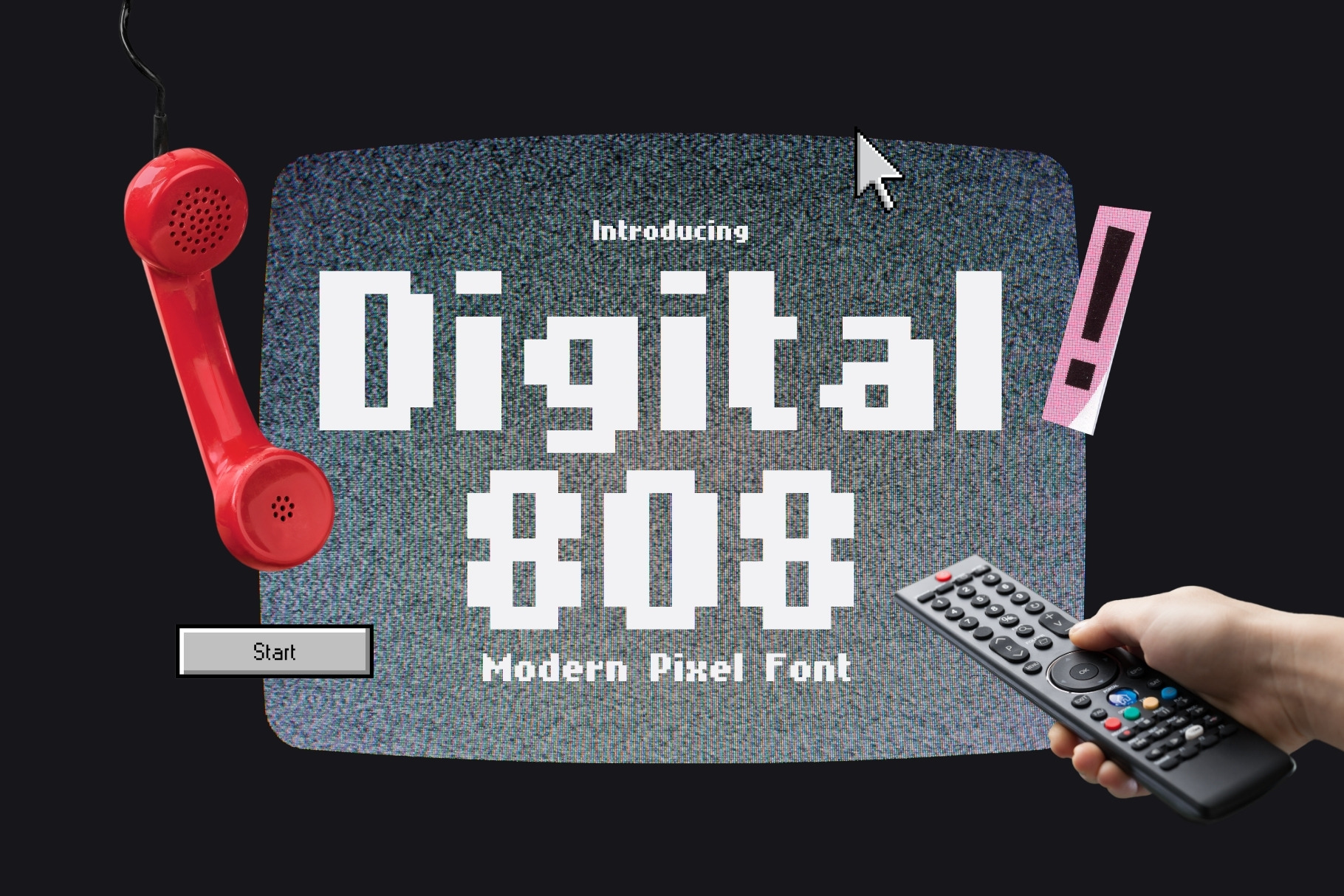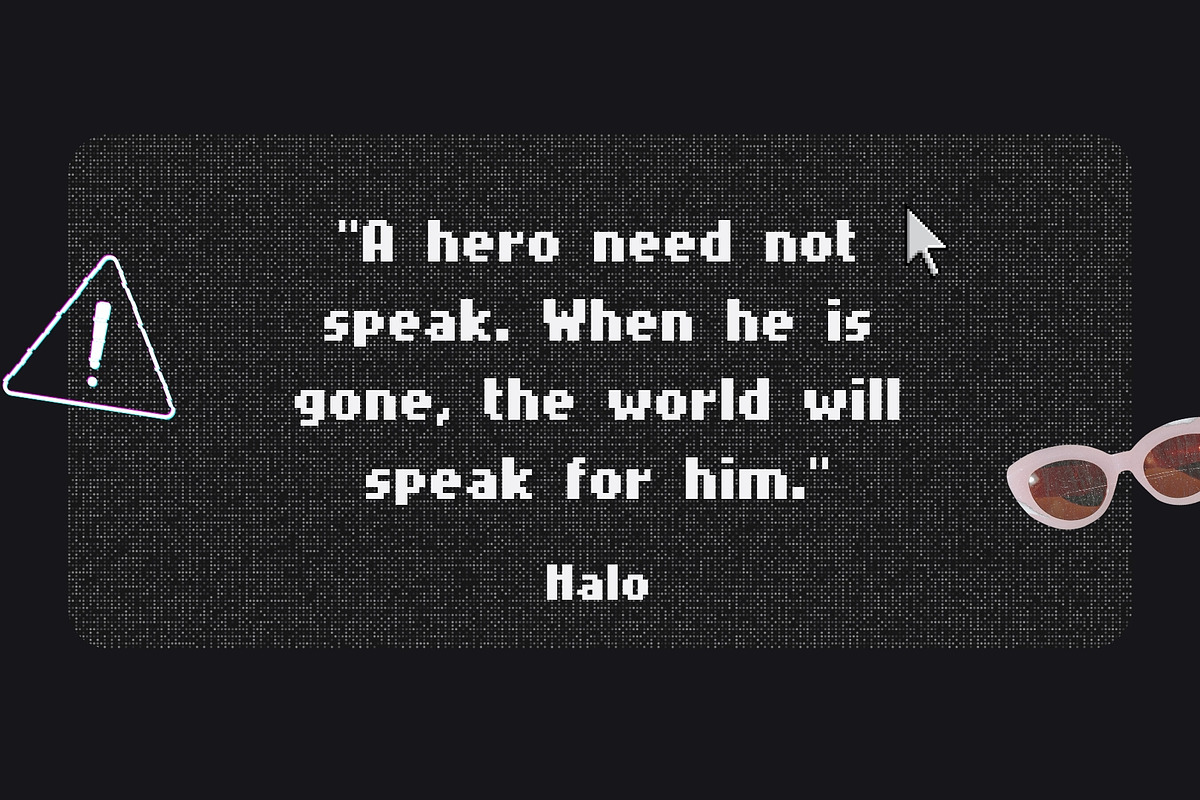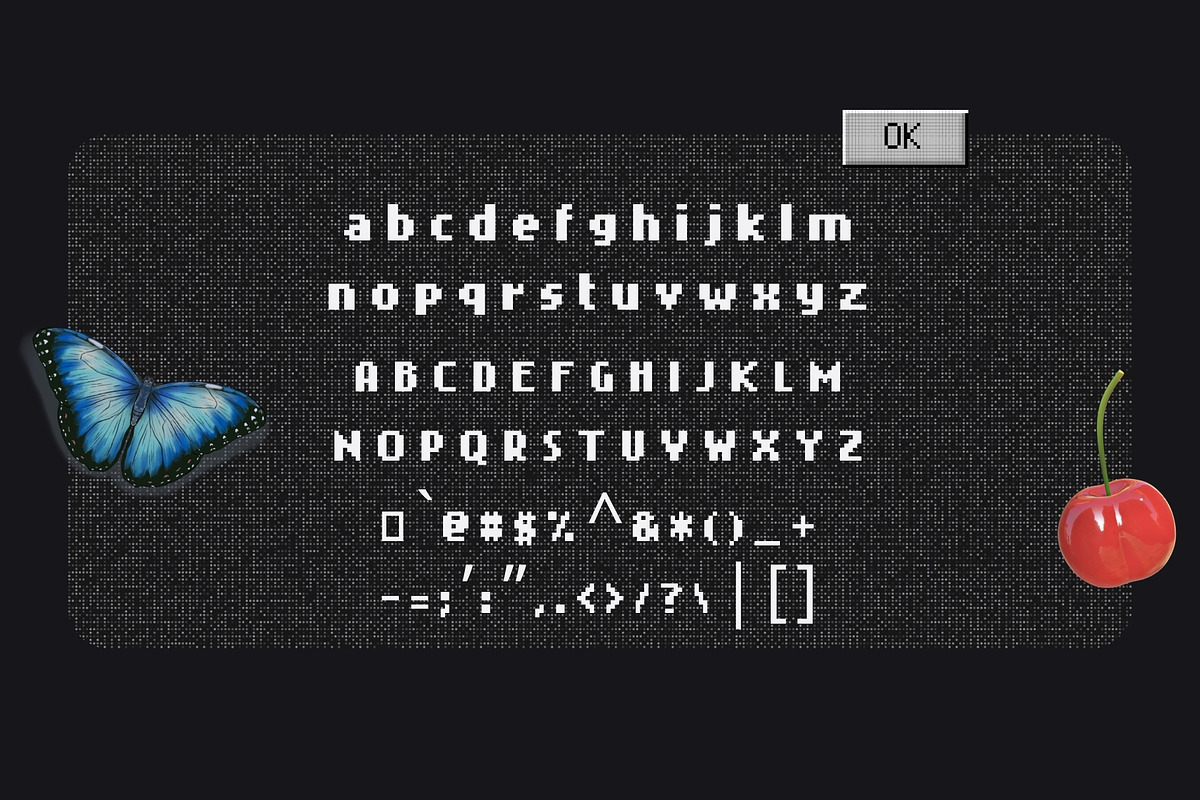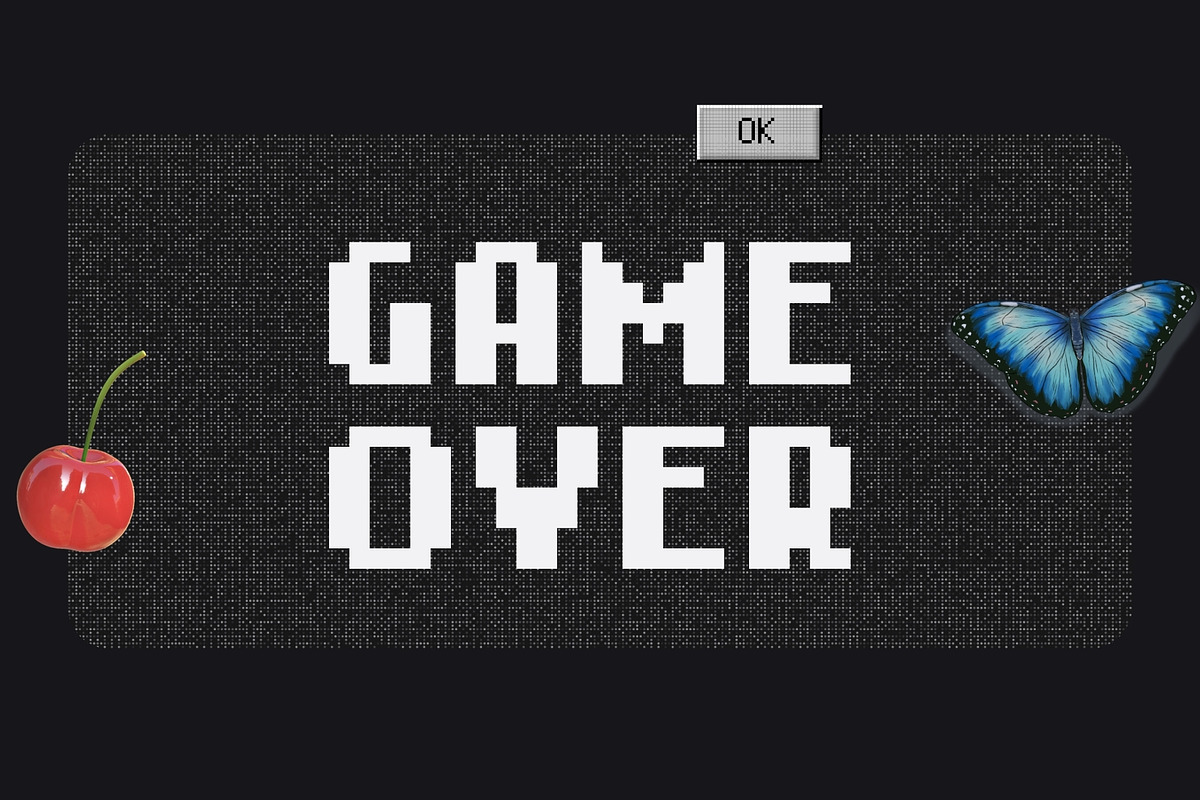
Digital 808 - 8Bit Pixel Font
Digital 808 is a modern pixel typeface built for creators who love retro aesthetics with a clean, contemporary twist. Crafted with precision, this font features 249 glyphs and supports 63 languages, making it a versatile choice for global design projects. Its crisp pixel edges, geometric rhythm, and refined structure bring classic 8-bit style into the modern era.
Perfect for logos, gaming interfaces, YouTube thumbnails, posters, apparel, digital products, tech branding, and nostalgic design themes, Digital 808 blends old-school charm with modern usability. Whether you're aiming for vintage arcade vibes or futuristic pixel-perfect layouts, this typeface delivers bold readability and unmistakable retro personality.